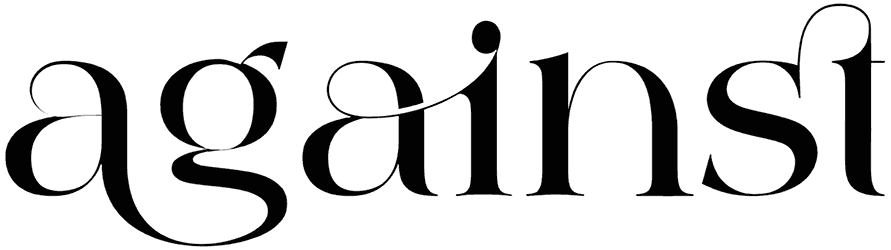
Against Font
Against is a timeless classic font that evokes elegance and refinement. The decorative flourishes give any text a sense of complexity to something more than words on a page.
This yoga font is steeped in history but still prevalent in the modern world. This versatile serif font can convey tradition and progress through posters, websites, printed writings, and books. As a result, it is an ideal choice for brands that want to balance the old and the new.